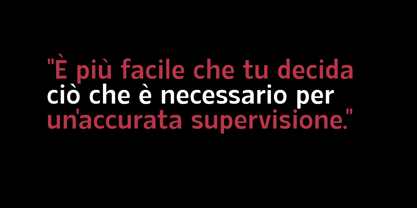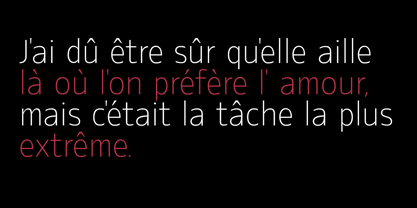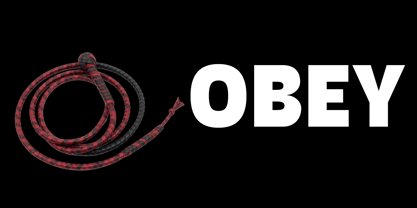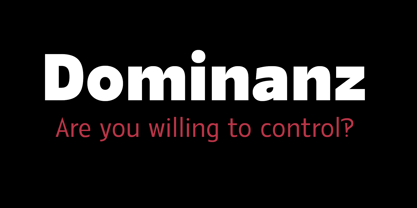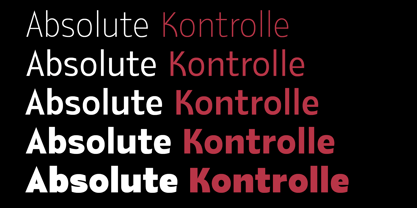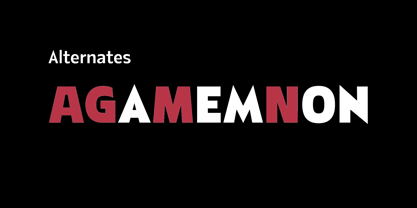
Dominanz
by Brave Type
The Dominanz Font Family was designed by Leonhard Katschner and published by Brave Type. Dominanz contains 5 styles and family package options. More about this family
Introducing Dominanz A Typeface that Takes Command In a world where subtlety is often mistaken for weakness, Dominanz stands as a bold declaration of strength, clarity, and absolute control. This sharp-edged sans serif font family was forged not merely to communicate — but to assert, to dominate, to rule the space it occupies. Every letterform in Dominanz is crafted with precision: angular terminals slice through whitespace with surgical intent, while its clean, sans serif structure grounds each character in unshakable modernity. There's no room for ambiguity here — only deliberate, undeniable presence. This is not a font that asks for attention. It demands it.
Designers: Leonhard Katschner
Foundry: Brave Type